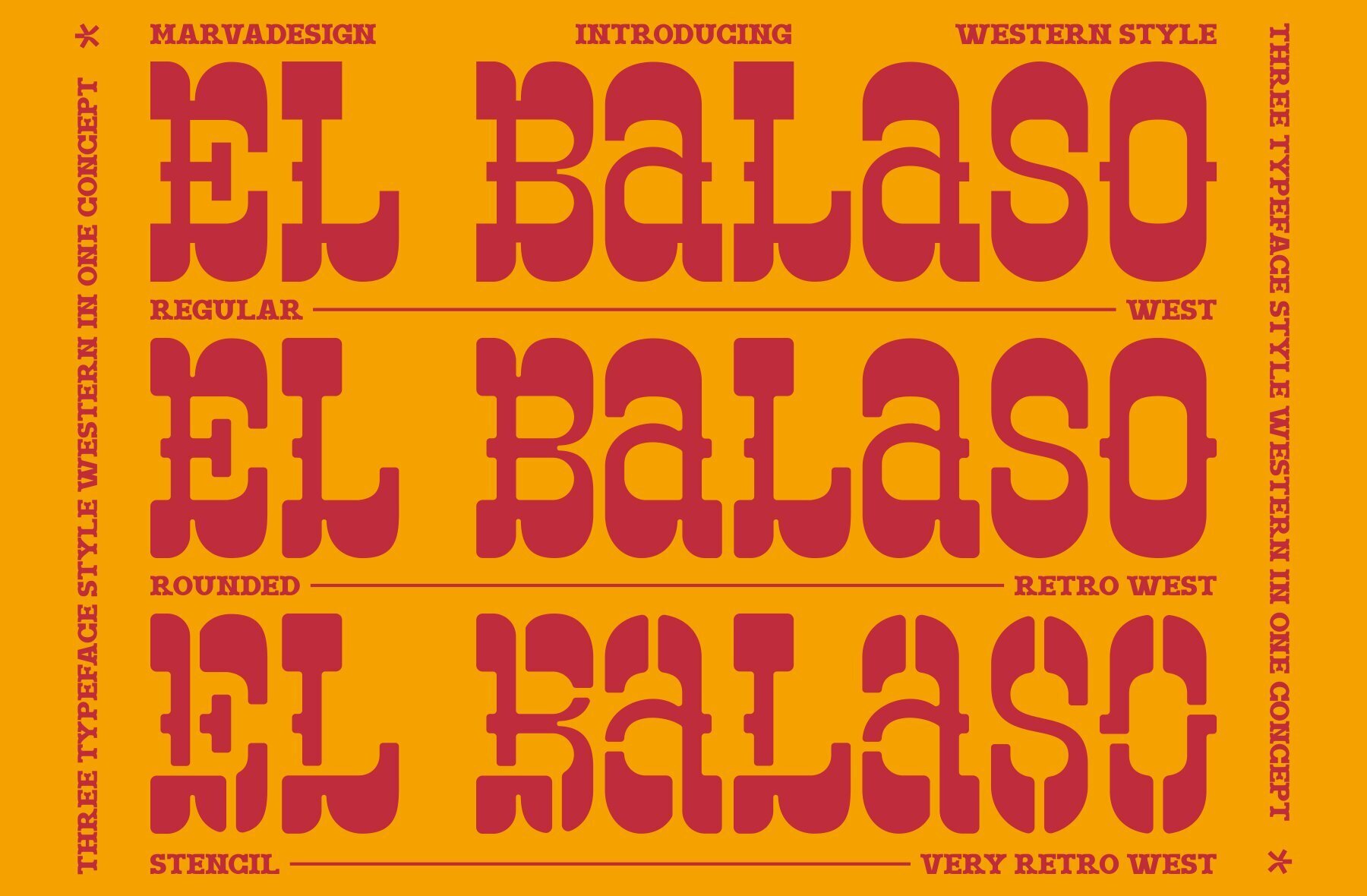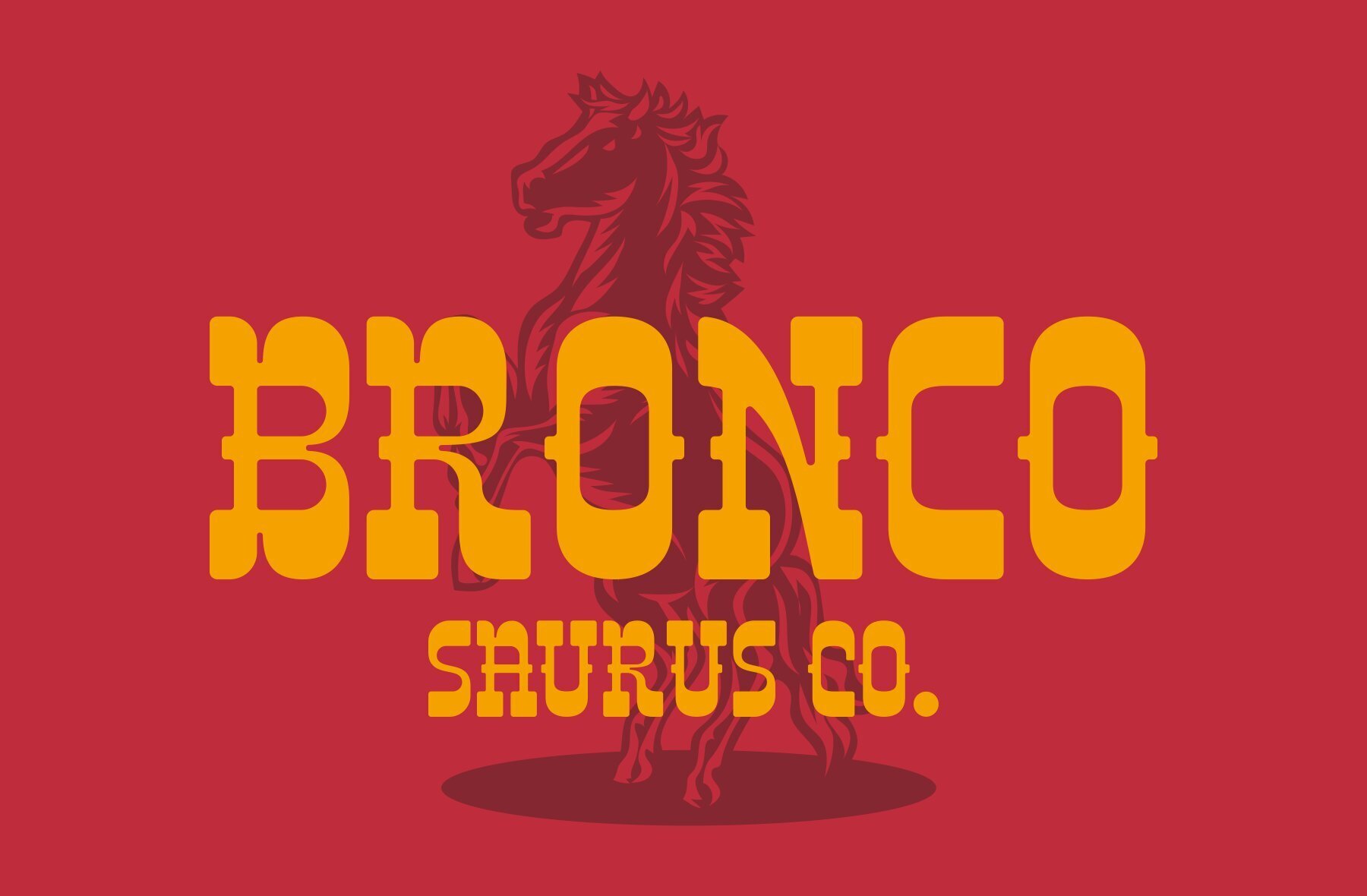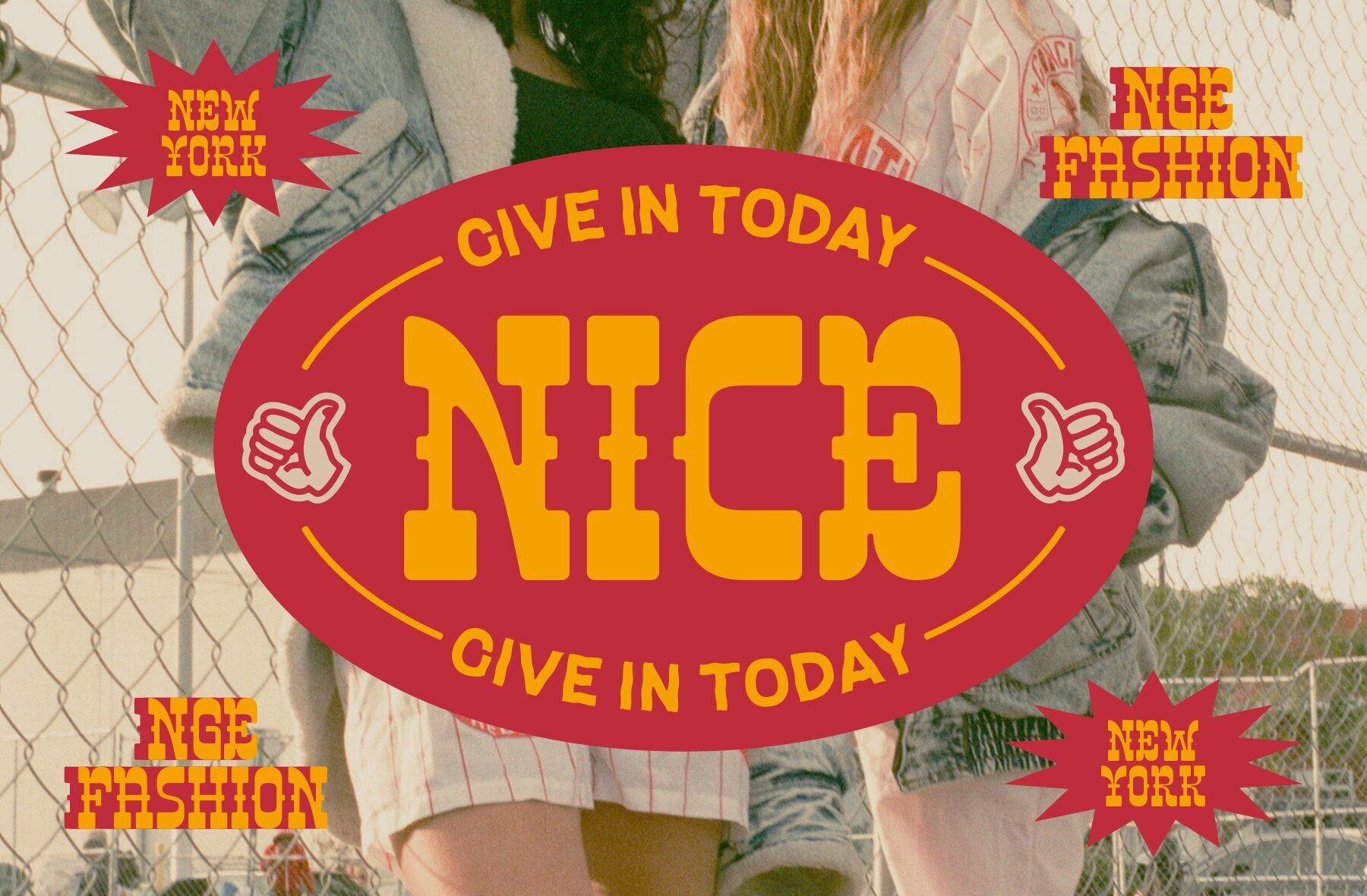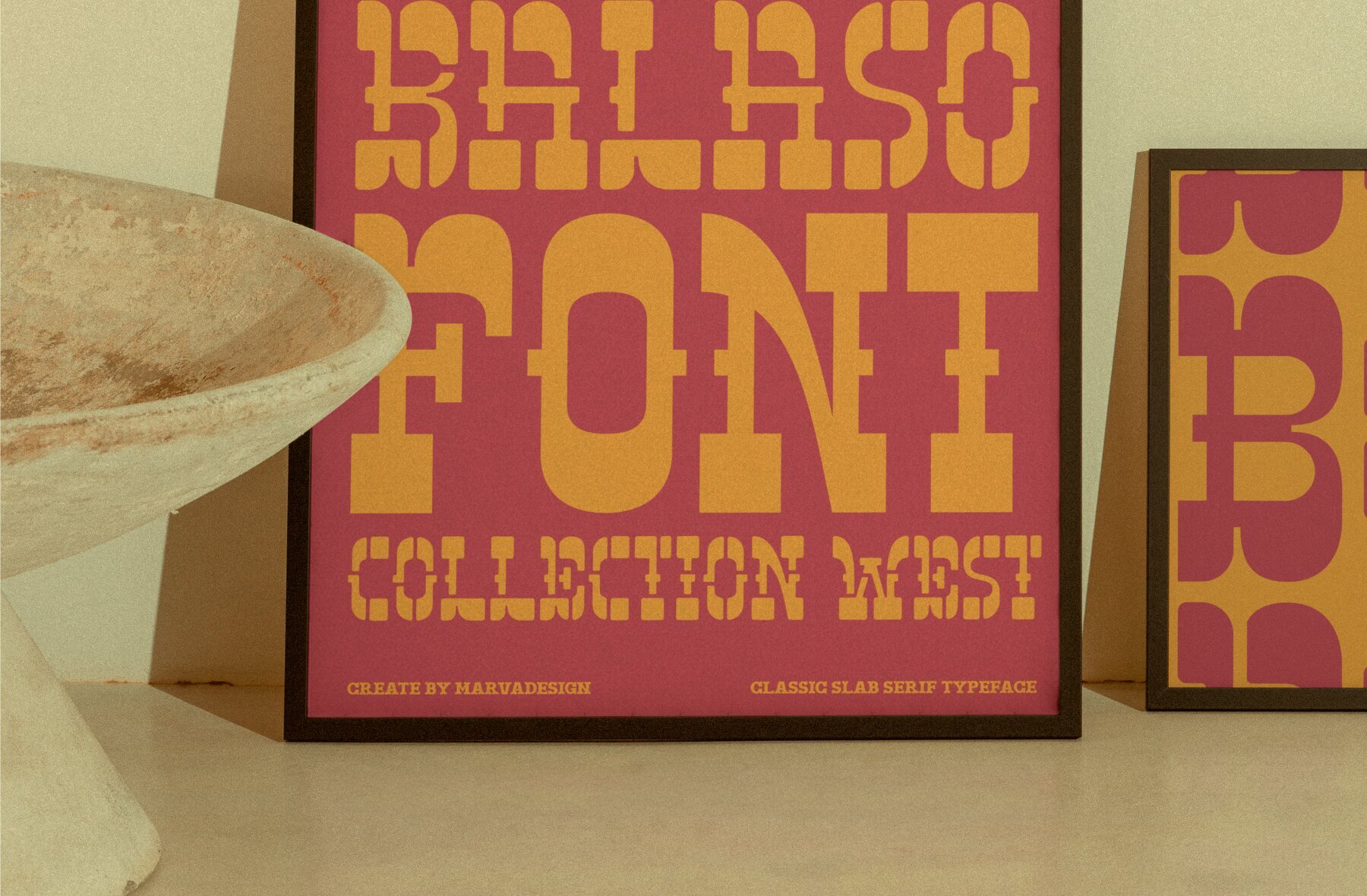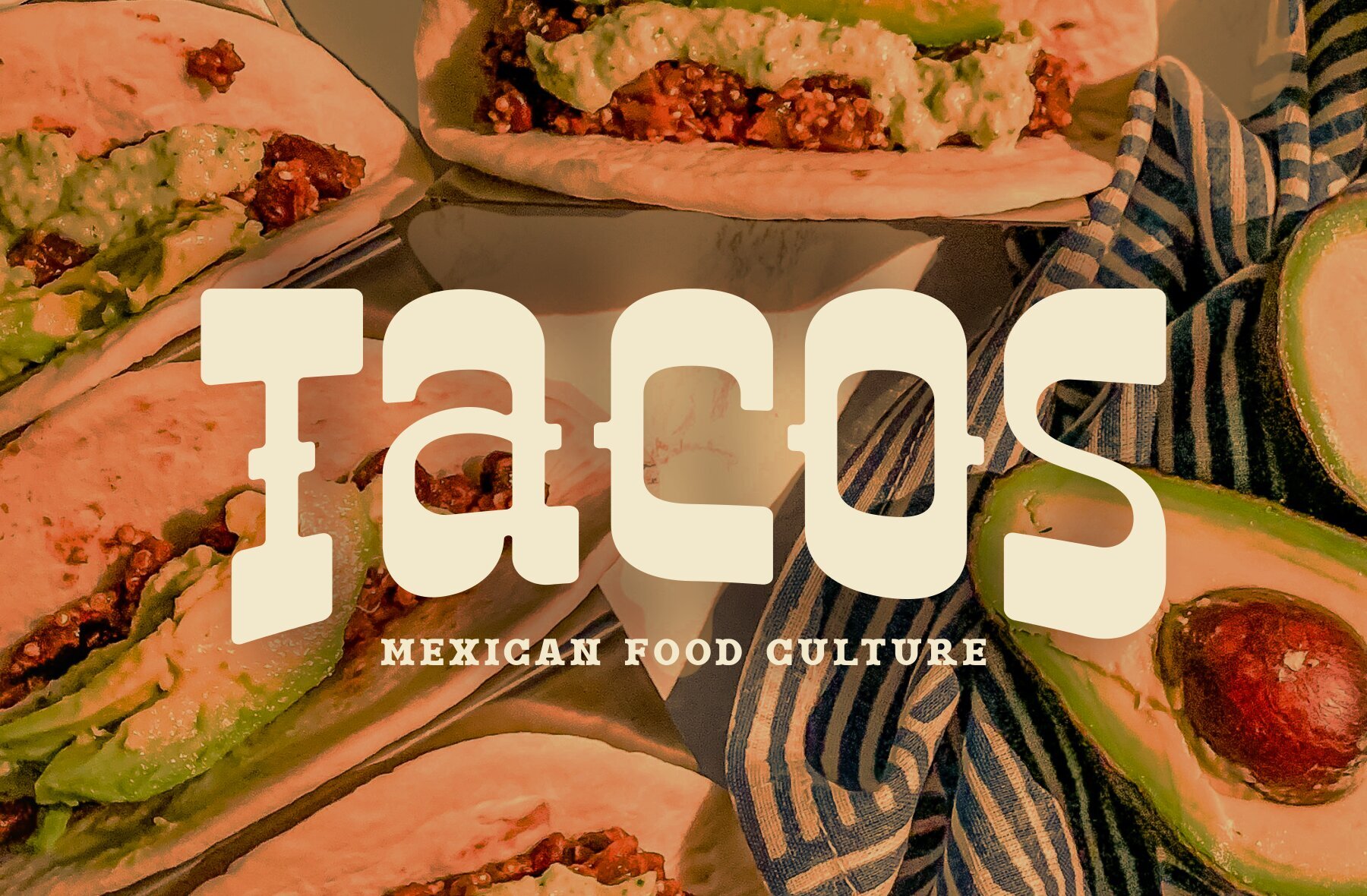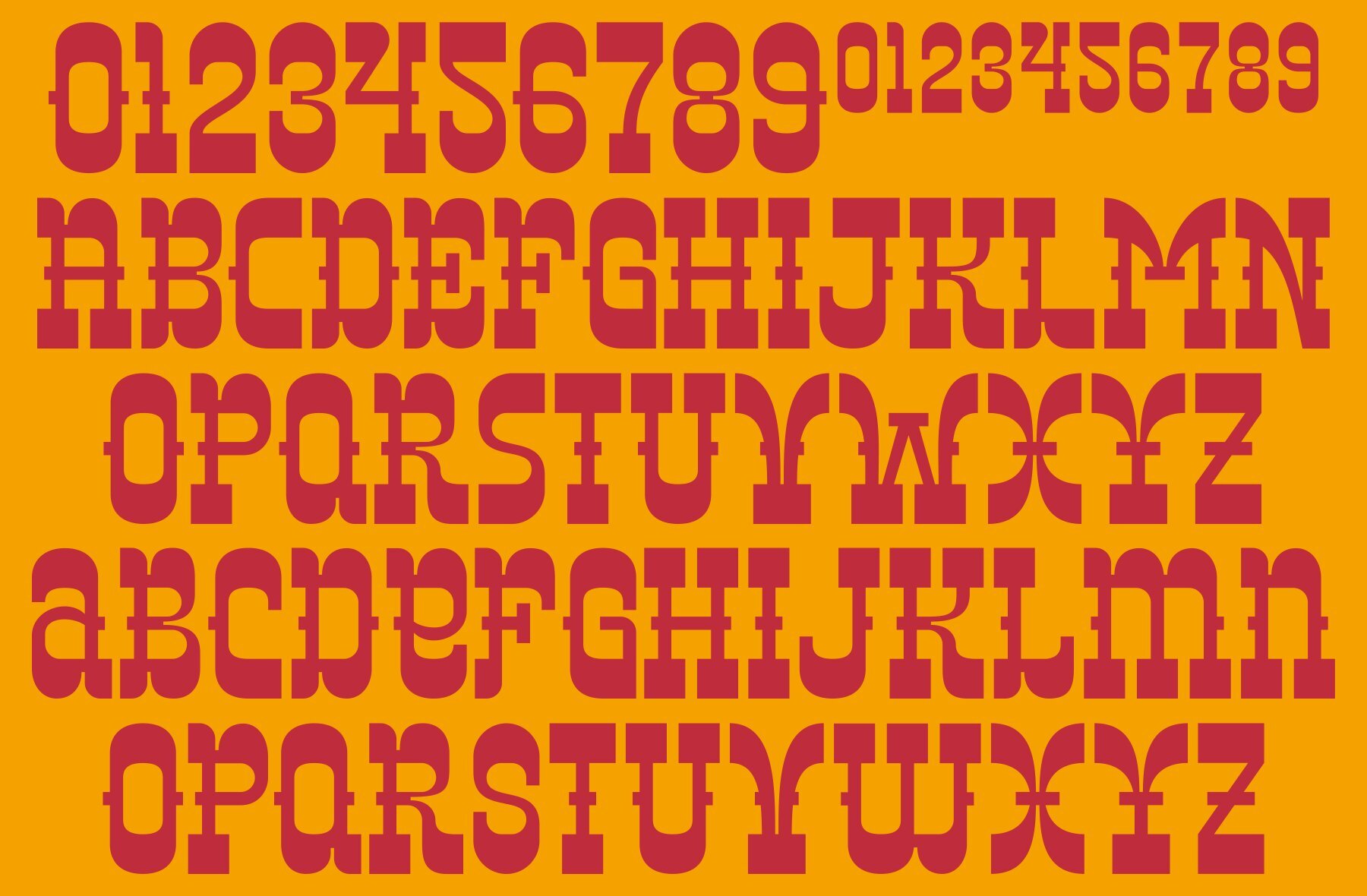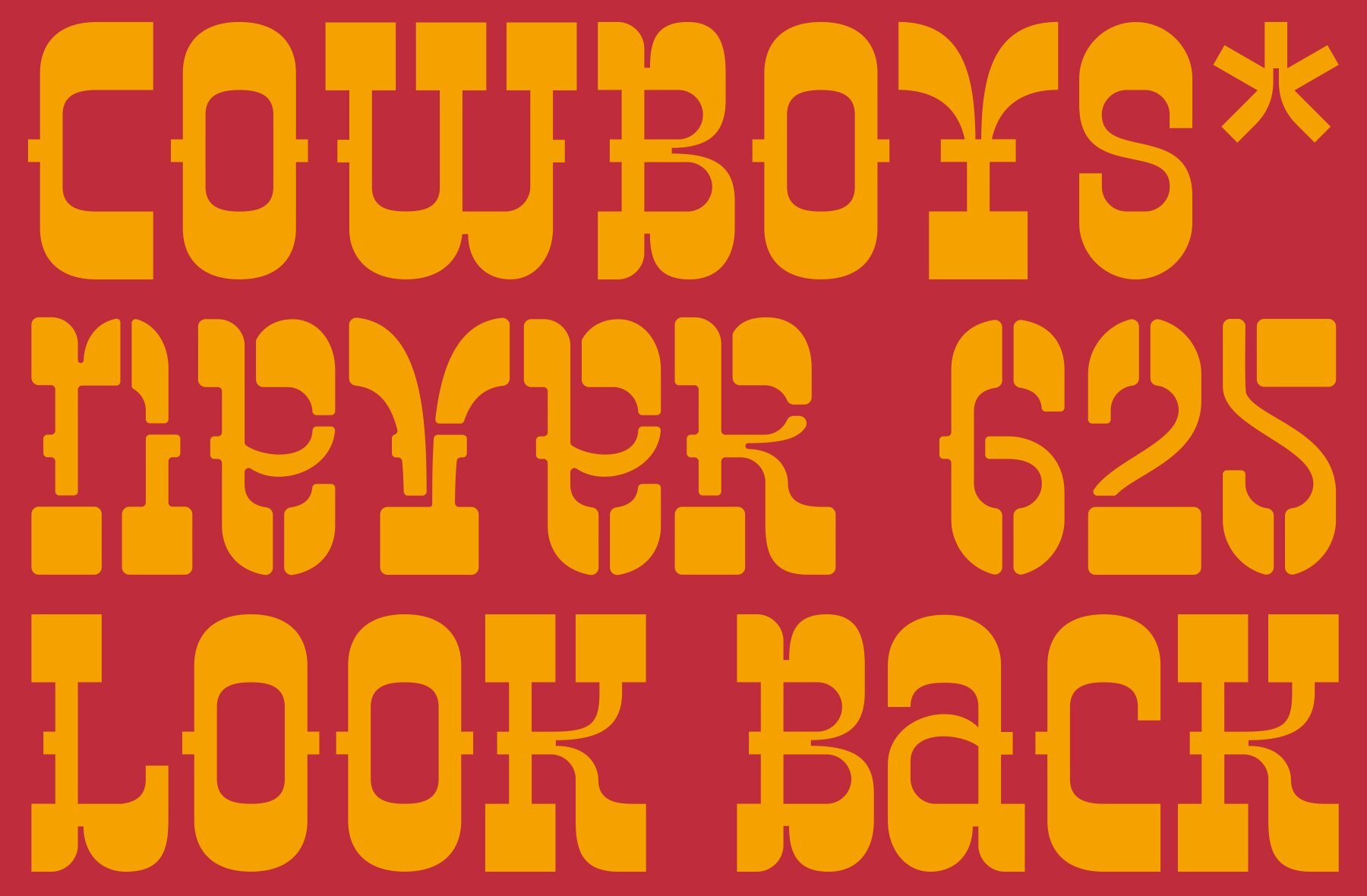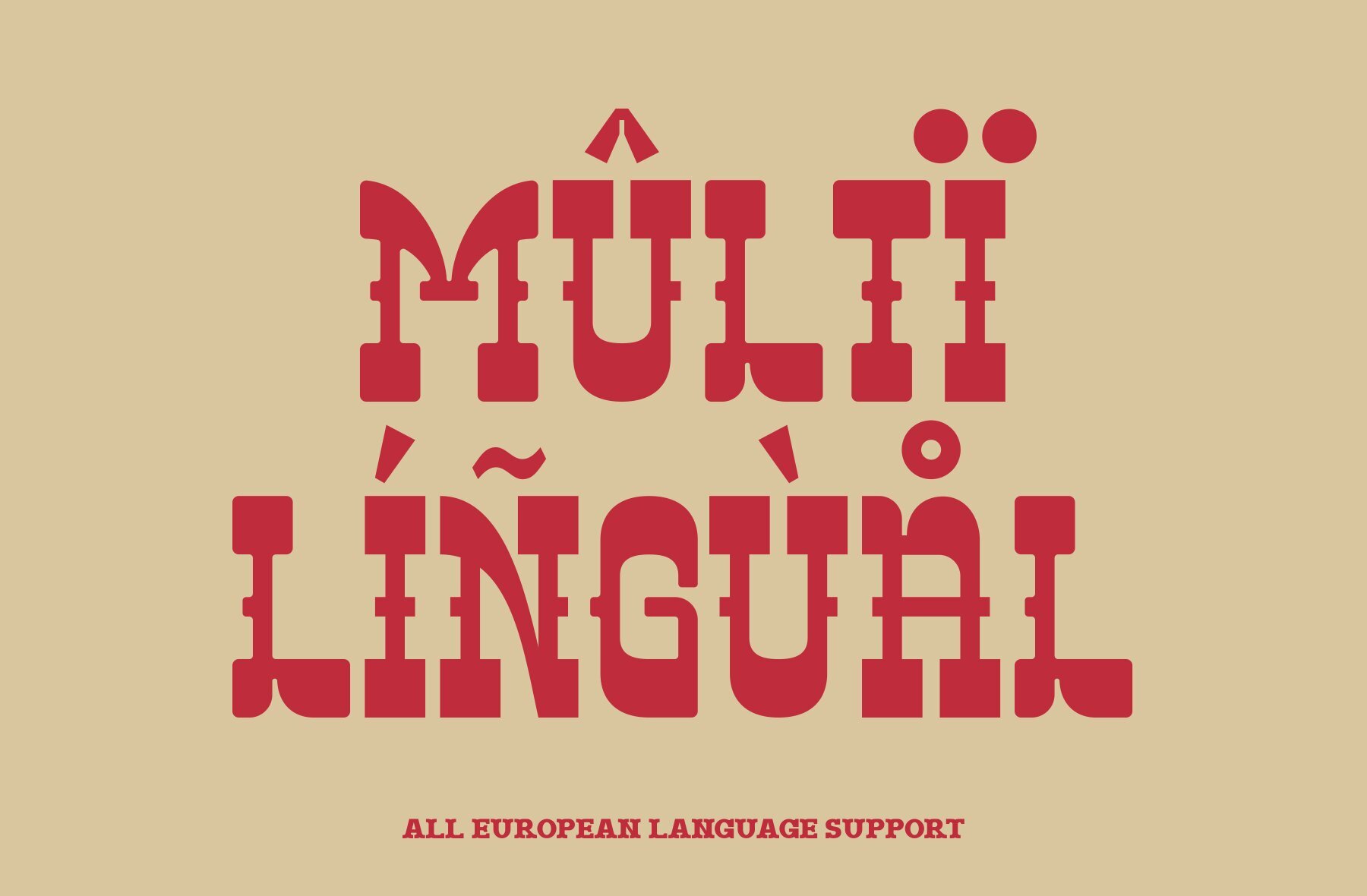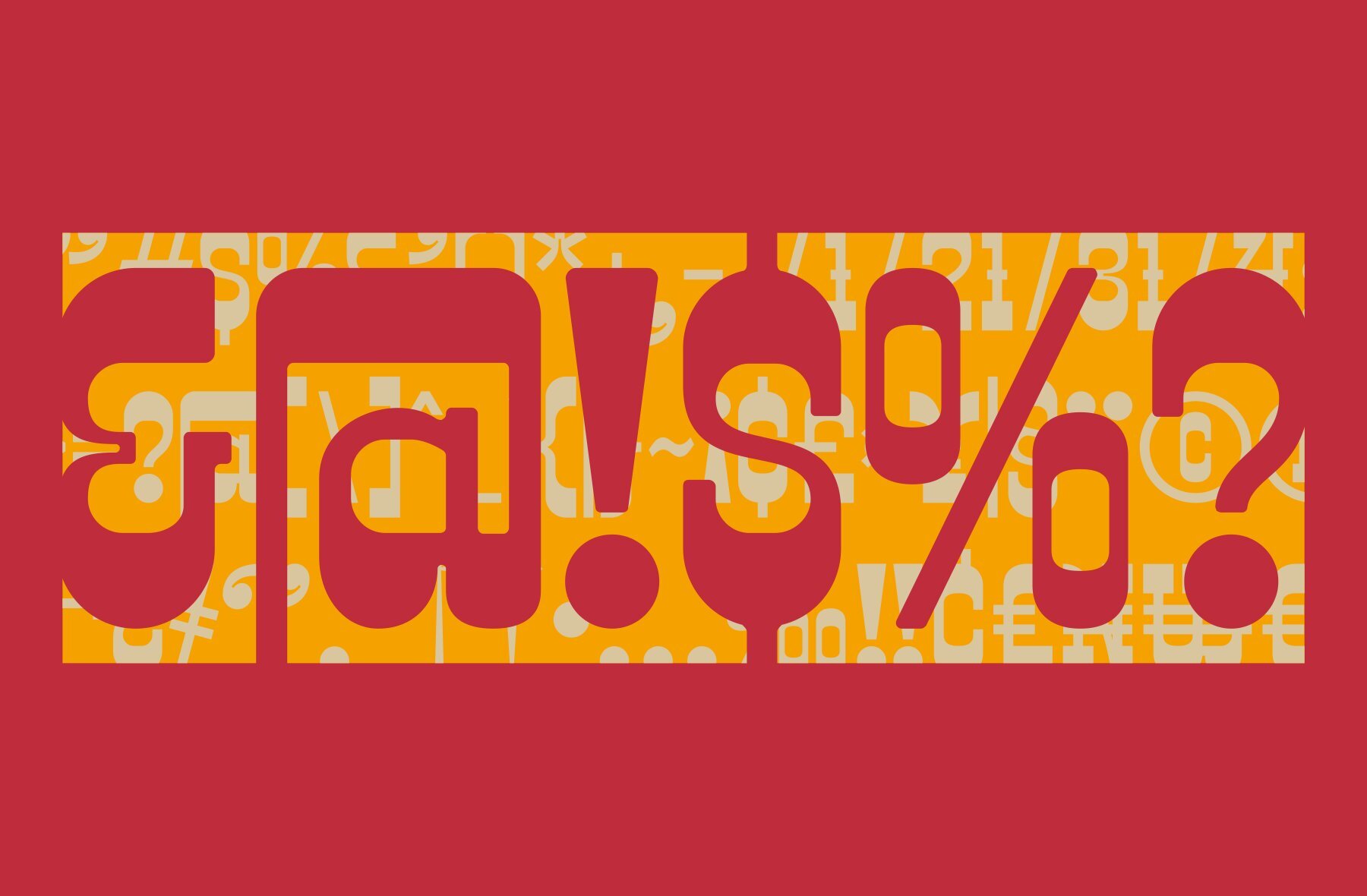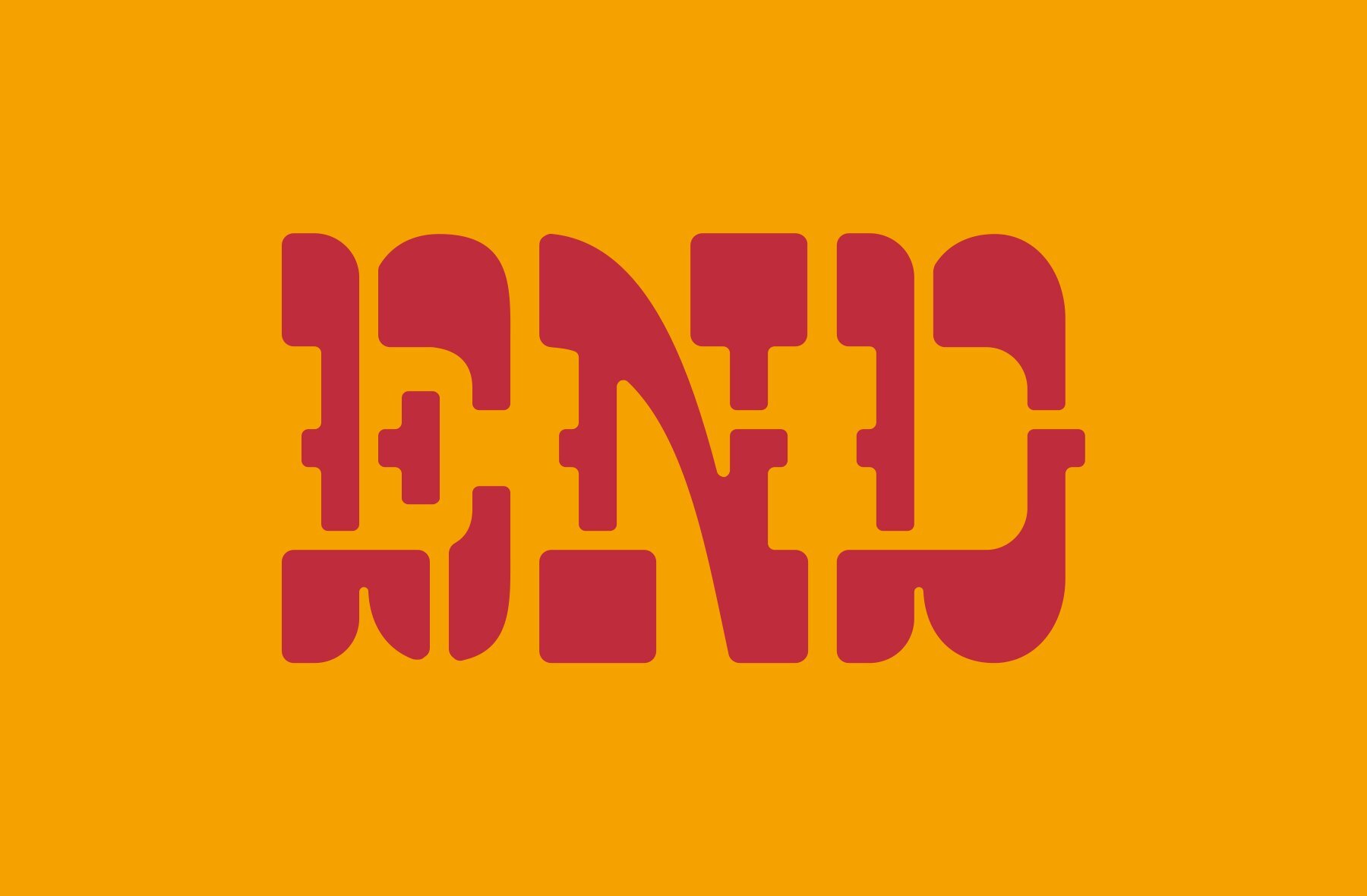
El Balaso Font
El Balaso is a bold, expressive typeface inspired by classic Wild West signs and vintage rodeo posters. Its retro, rugged aesthetic is crafted with a distinctive slab-serif foundation and curved letterforms, making it ideal for various thematic designs. The typeface's vibrant reds and yellows enhance its energetic appeal, ensuring your designs stand out. With its unique character, El Balaso suits both modern and nostalgic American themes.El Balaso: Bold Western-Style Typeface